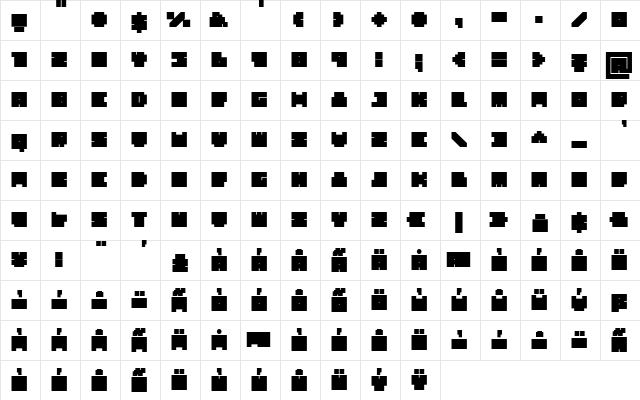
WEAR FAT SHIRT Okay
| Foundry | Manuel Viergutz |
| Designer | Manuel Viergutz |
Design Context for WEAR FAT SHIRT Typeface
WEAR FAT SHIRT is a composed and adaptable typeface that performs quietly and consistently across a wide range of design contexts.